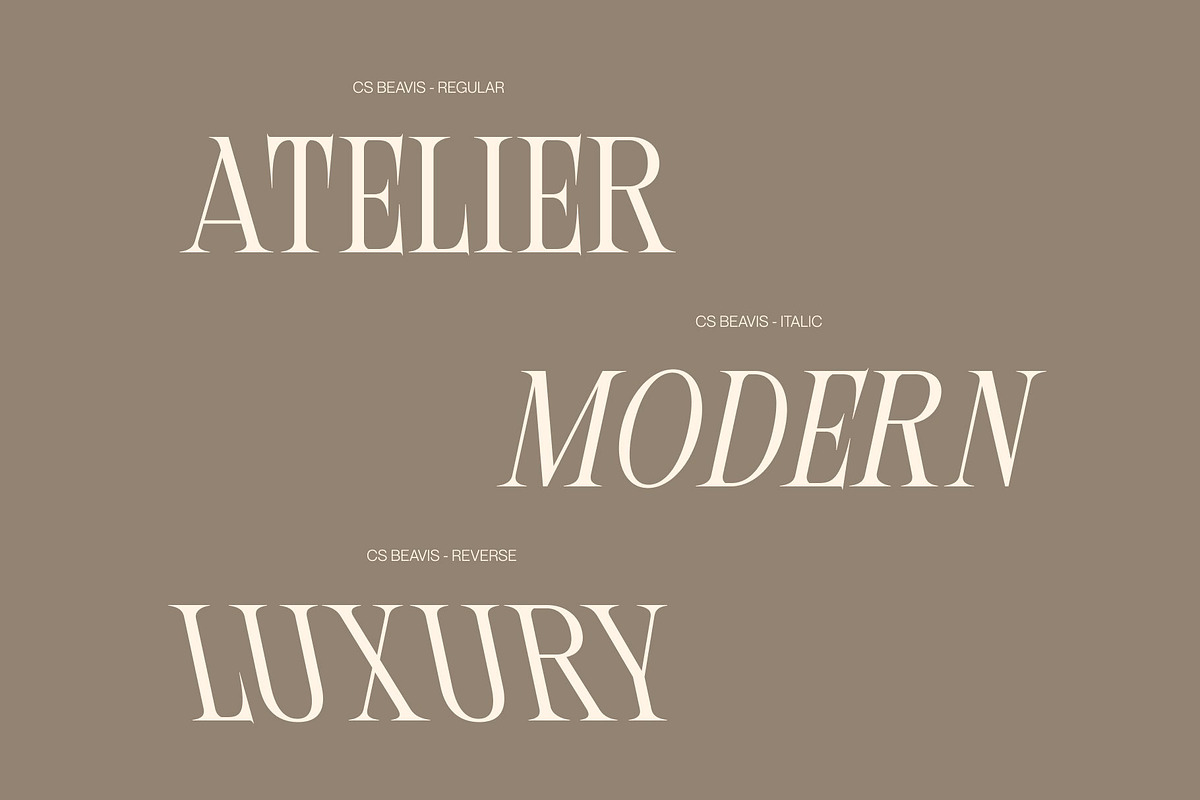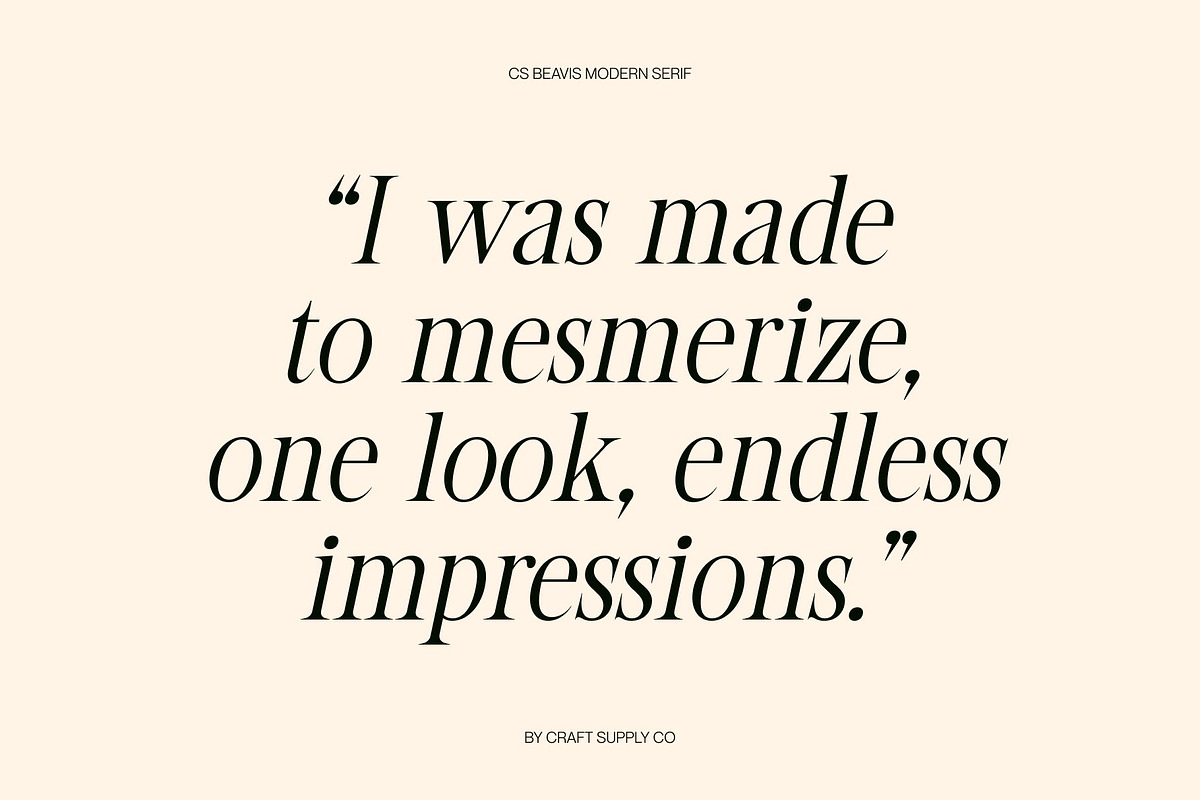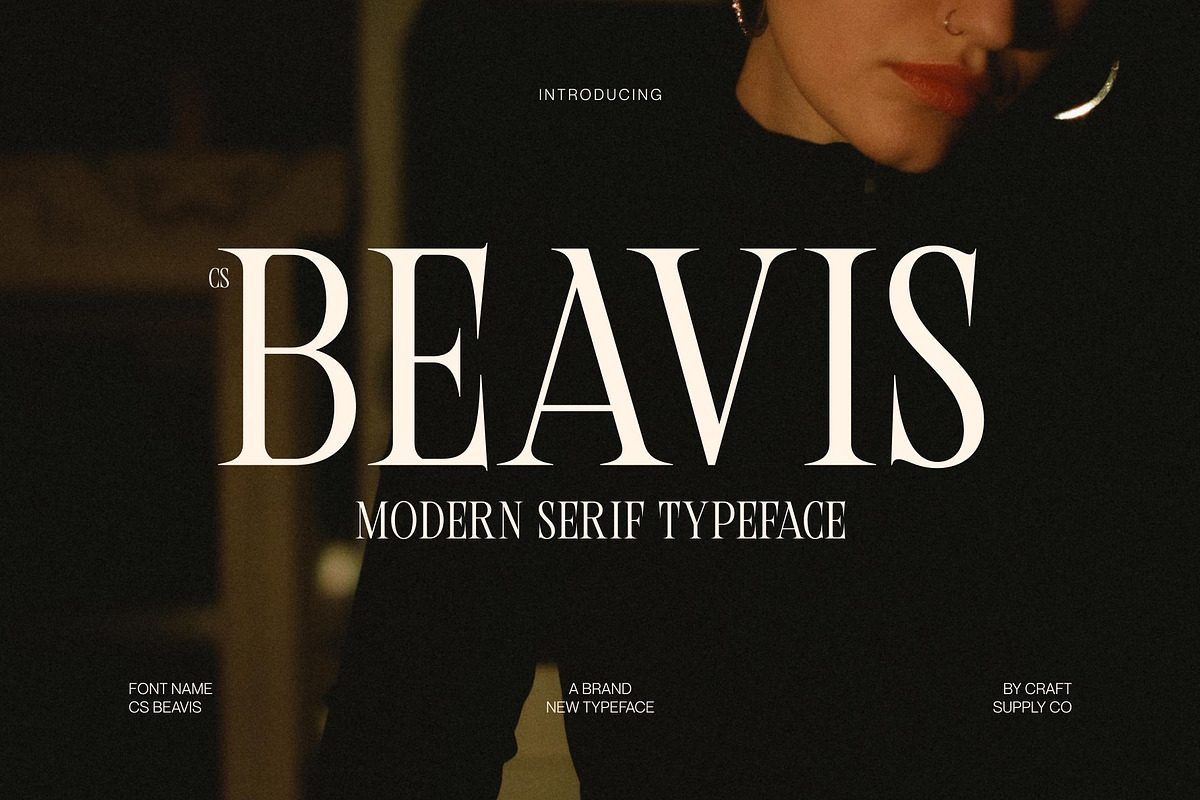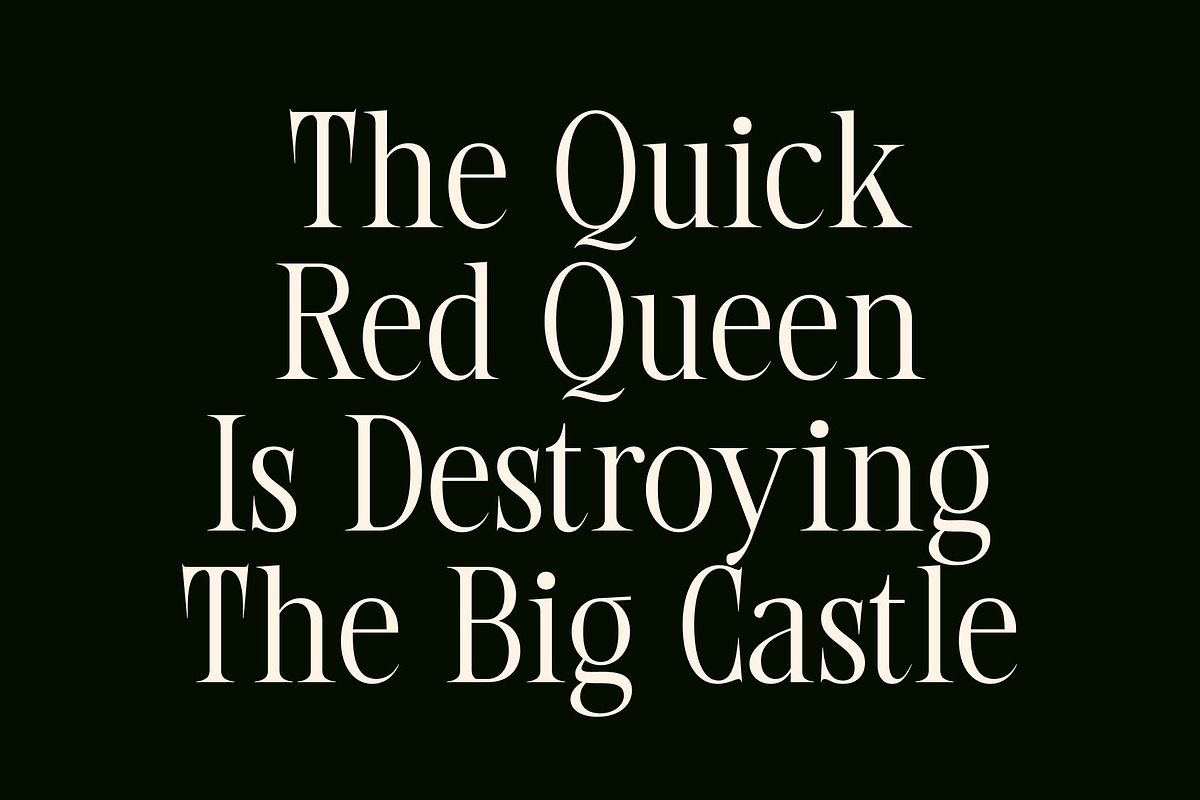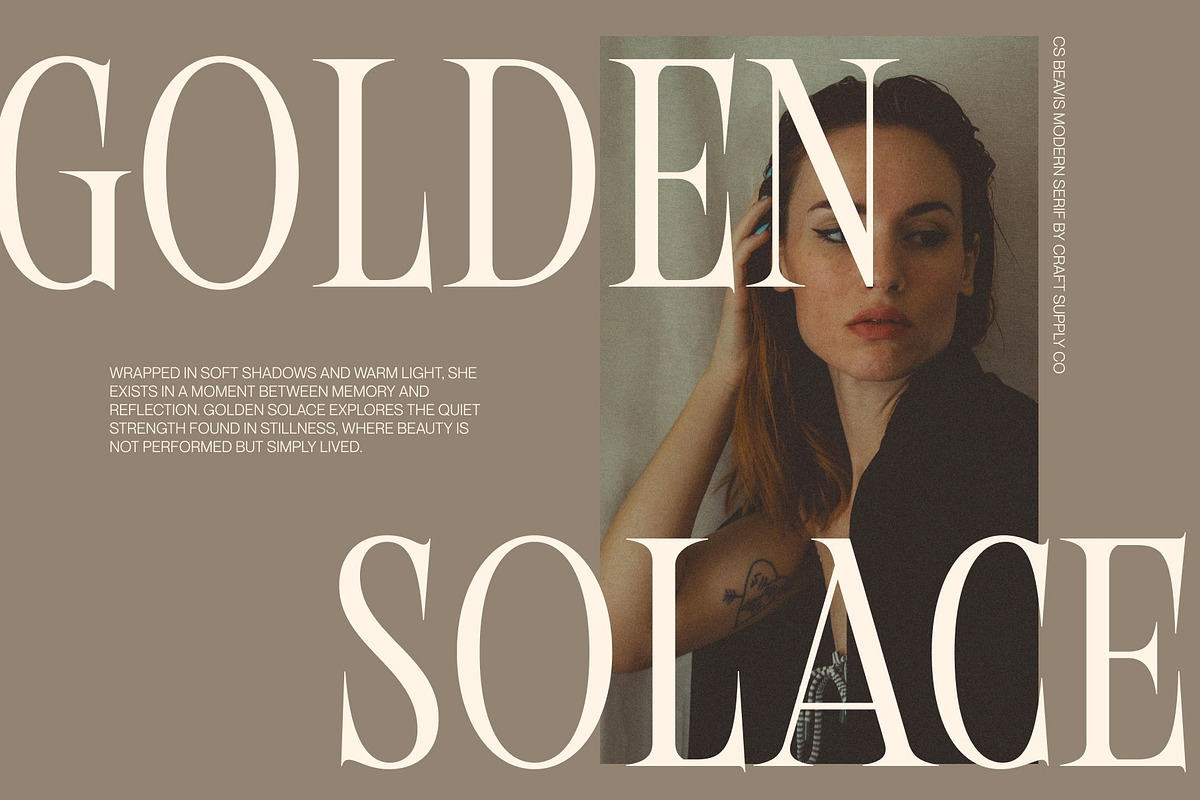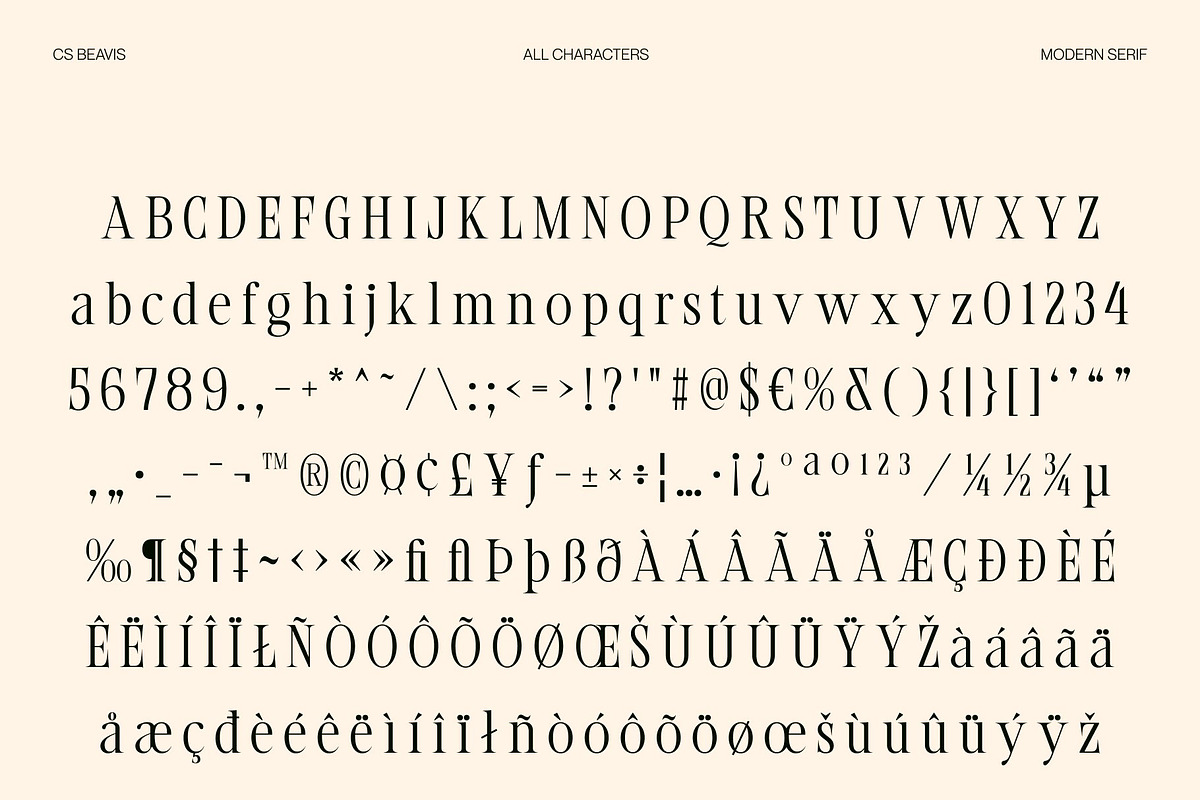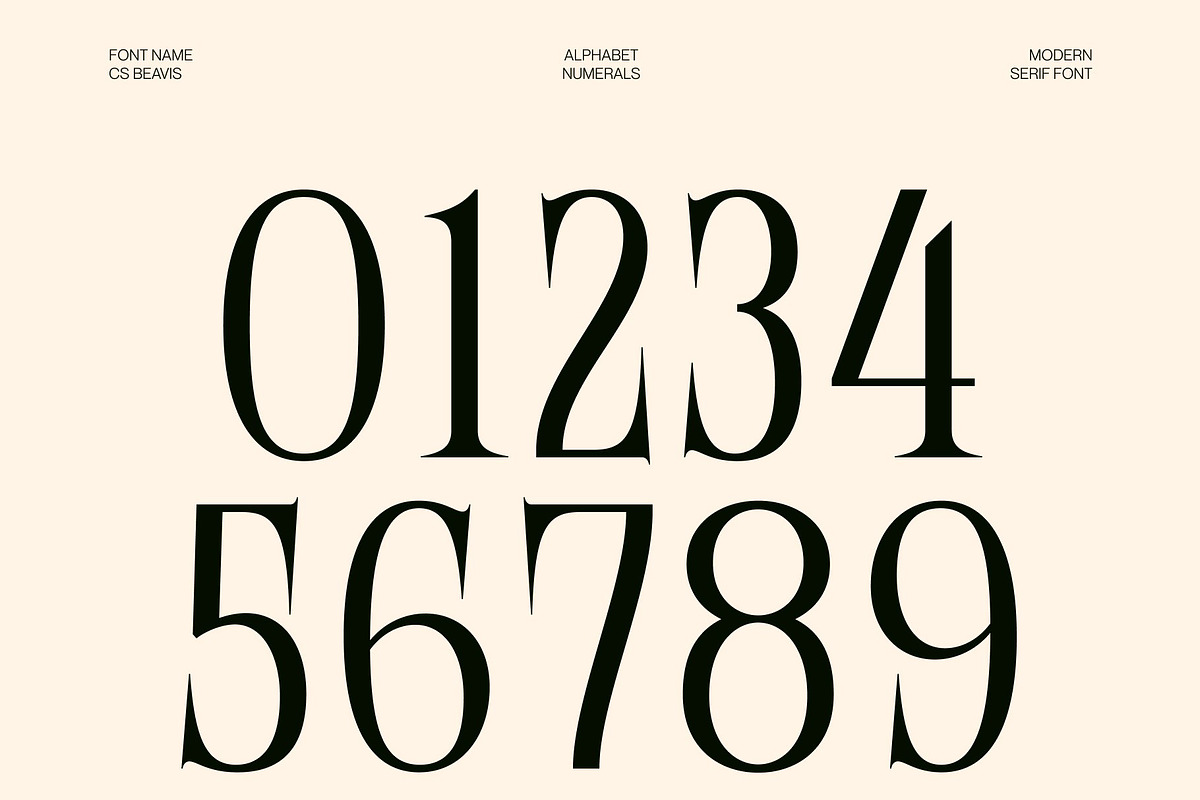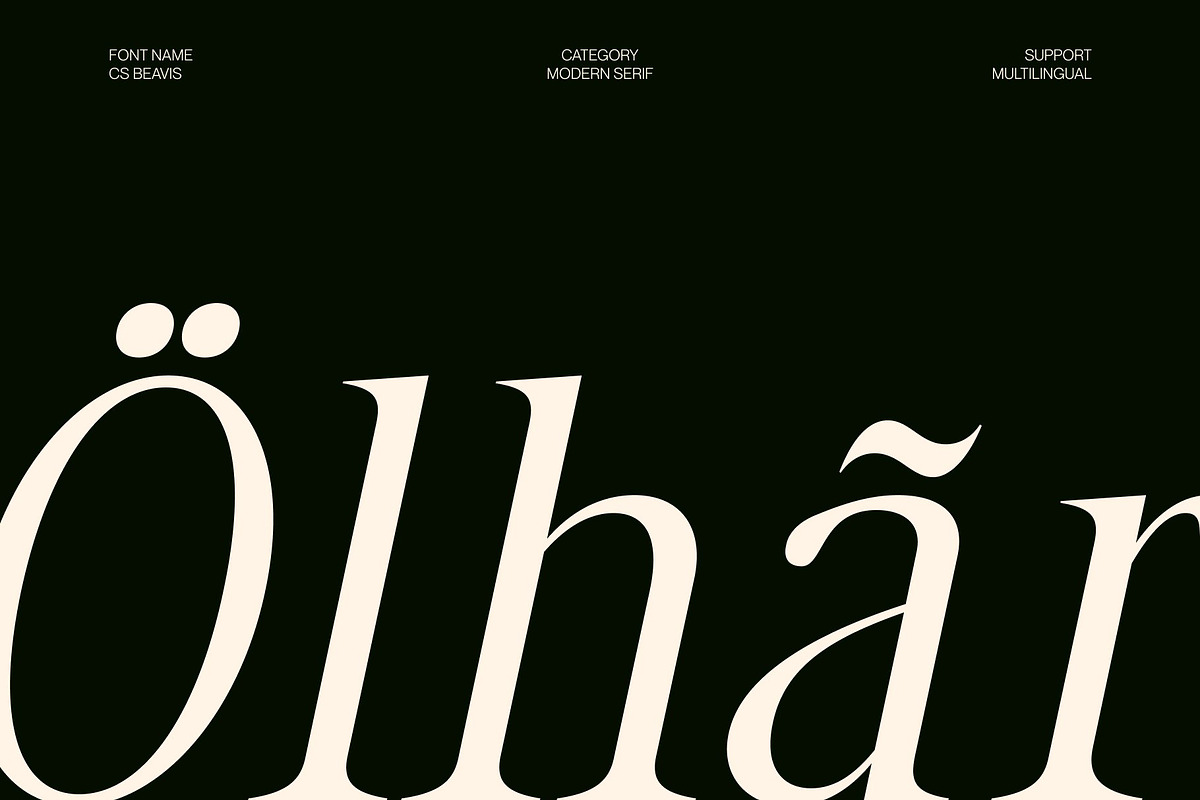
CS Beavis – Modern Serif Font
CS Beavis – Modern Serif Display Font: Where Contemporary Clarity Meets Elegant Expression
Modern Serif Display Font This is a modern serif display font shaped by clean, contemporary letterforms and a refined visual rhythm. It delivers a balanced combination of elegance and modern simplicity, creating a strong typographic presence that feels both sophisticated and approachable. Every character is designed to express clarity with a subtle touch of class.
Clean Contemporary Letterforms The font features smooth, well-structured shapes that emphasize modern design principles. Its clean construction enhances readability while maintaining a distinct editorial personality. This font brings a polished aesthetic that works seamlessly in both bold headlines and refined visual compositions.
Elegant and Sophisticated Tone With its graceful proportions and subtle serif detailing, this font conveys an elegant and sophisticated impression. The font avoids excess decoration, instead relying on precise geometry and thoughtful spacing to achieve a timeless and classy appearance suitable for premium design work.
Perfect for Branding and Editorial Use This font ideal for branding, editorial layouts, posters, and creative projects that require a modern yet refined identity. Whether used for luxury branding, magazine covers, or minimalist advertising, this font delivers a confident visual tone that elevates any design with effortless style